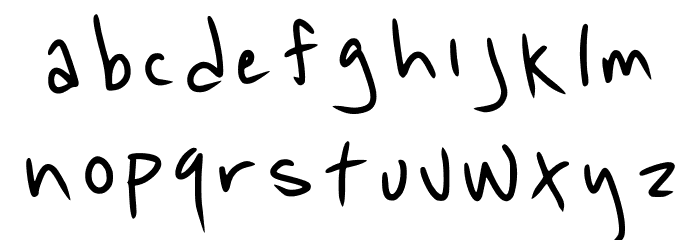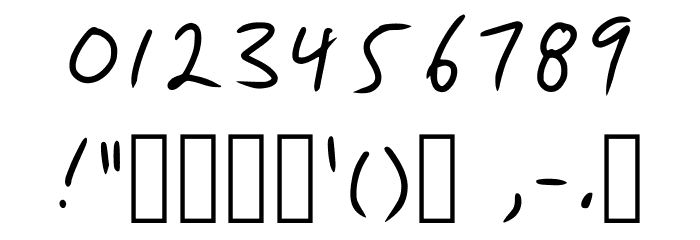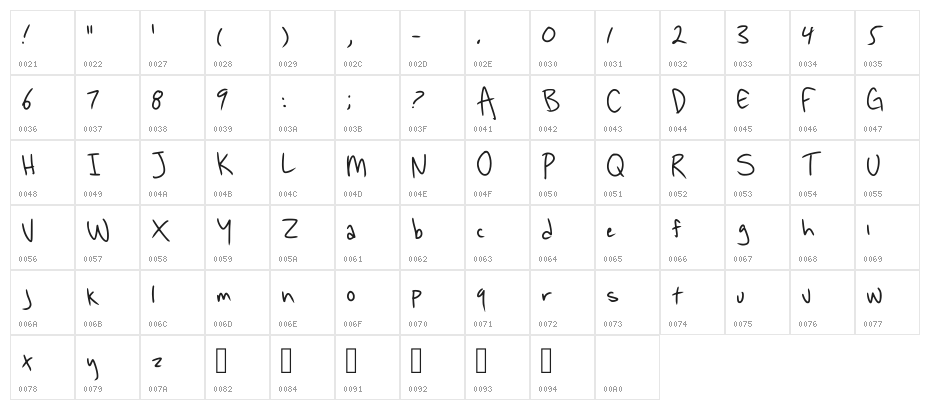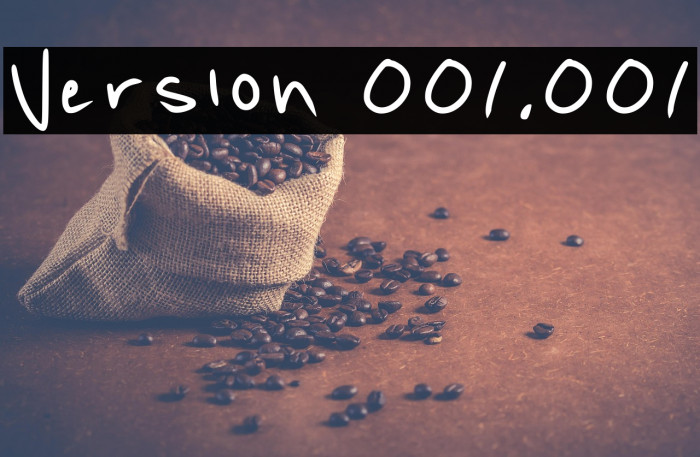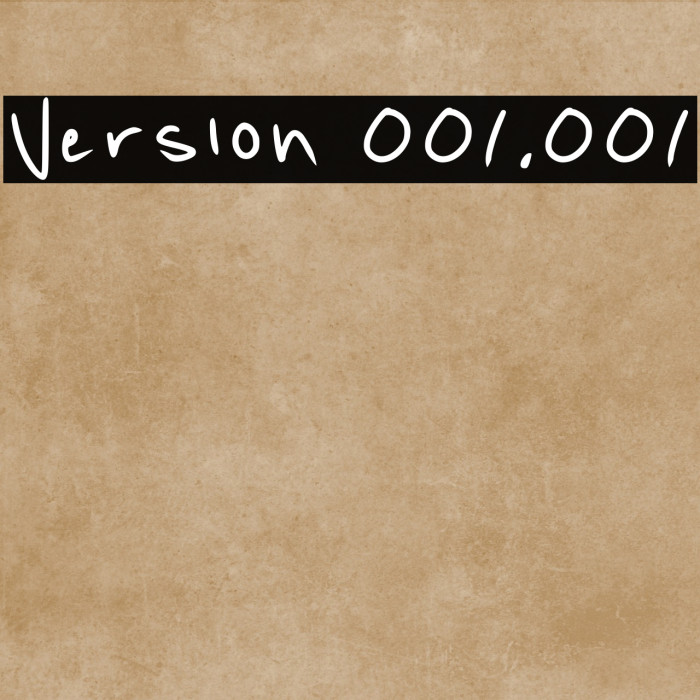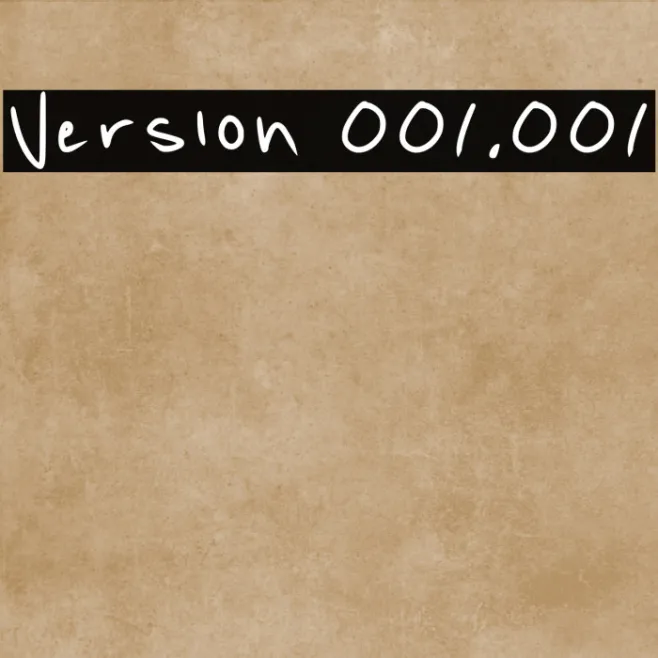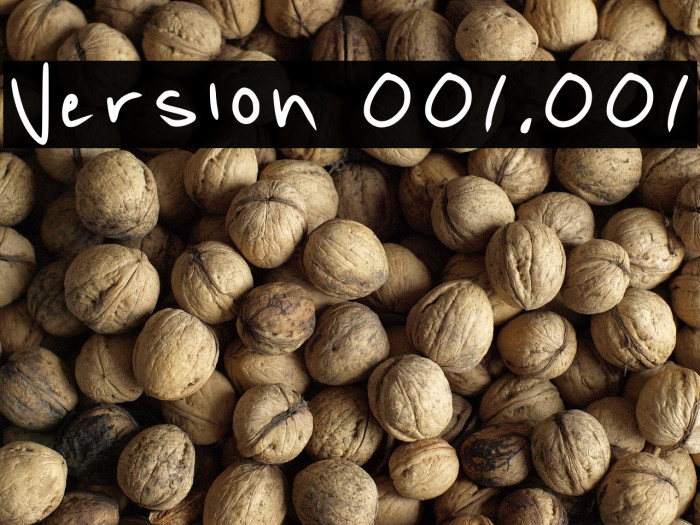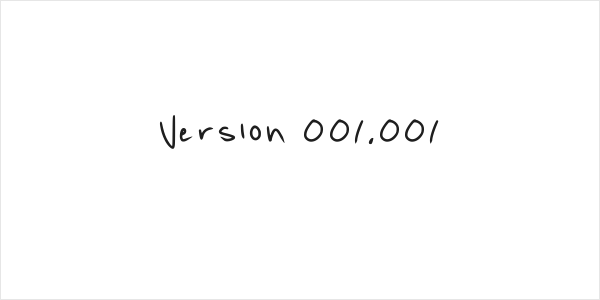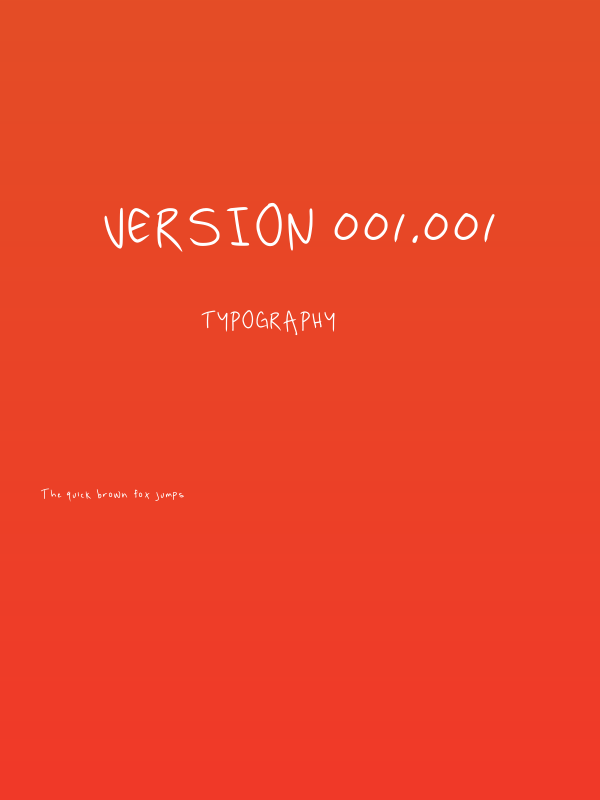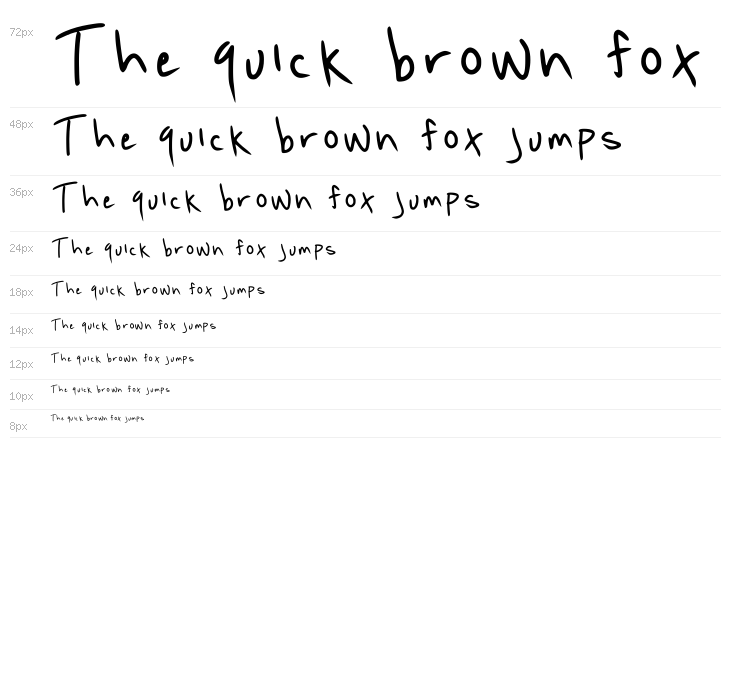
Version 001.001 Font
This font exhibits a playful and casual handwritten style, characterized by its irregular and slightly tilted letterforms. The strokes are smooth and fluid, giving it a natural and approachable feel. The uppercase and lowercase letters maintain a consistent style, with rounded edges and varying stroke thickness that adds to its informal charm. The numerals and special characters follow the same handwritten aesthetic, ensuring a cohesive look across all glyphs. This font is perfect for projects that require a personal touch, such as greeting cards, invitations, or casual branding.
A playful handwritten font with smooth, fluid strokes and a casual feel.
- Font: Version 001.001
- Proposed Projects: Ideal for greeting cards, invitations, personal branding, and informal communication.
- Category: Handwritten
- Overall Style: Casual
- Use Case: Headlines, Informal text, Personal projects